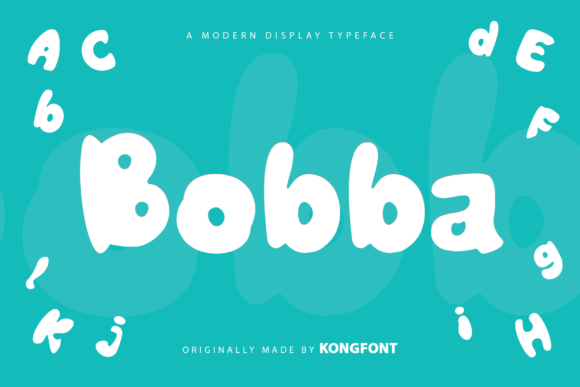
Bobba Font
Introducing Bobba Font: A Whimsical Typeface That Unleashes Your Creativity!
Step into a world of enchanting design with Bobba Font, a display font that's as playful as a bubble tea on a sunny day! Crafted with the utmost care by the talented designers at Fontkong, Bobba Font captivates hearts with its charmingly quirky curves and cheerful style. Whether you're a crafter, designer, or simply a word enthusiast, Bobba Font is your ticket to a world of endless creative possibilities.
Dive into a sea of colors and let your imagination soar as you explore the Bobba Font's versatility. This font is a chameleon of creativity, effortlessly adapting to any project you throw its way. Create eye-catching product packaging that leaps off the shelves, elevate your branding projects to new heights, or design magazine covers that demand attention from every passerby. Bobba Font is your trusty companion, transforming ordinary designs into extraordinary expressions.
Unleash the magic of Bobba Font on your social media platforms and watch your followers fall in love with its charm. Craft witty tweets, enchanting Instagram captions, or eye-catching Facebook posts that pop with personality. This font will add a touch of whimsy to your wedding invitations, transforming them into cherished keepsakes that reflect the joy and love of your special day.
With Bobba Font, you'll never run out of creative fuel. Let your words dance across the page, expressing themselves with a touch of playfulness that's sure to leave a lasting impression. This font is more than just a collection of letters; it's an invitation to let your imagination run wild and create designs that resonate with your audience.
Embrace the Bobba Font, and embark on a creative journey that's as delightful as a bubble tea adventure! Its charming nature will add sparkle to your projects, while its versatility ensures endless possibilities. Dive in, explore, and let Bobba Font enchant your designs!